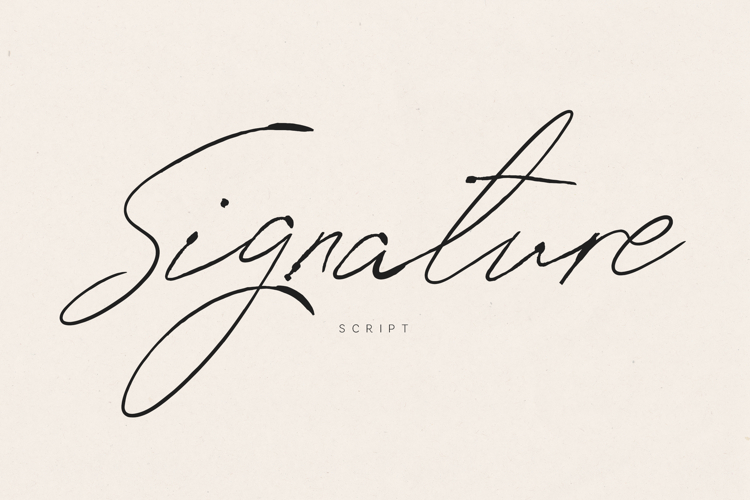
Signature Script Elegant Signature Handwritten
Signature is an elegant handwritten script font designed to capture the natural flow of real signature writing. With its smooth strokes, expressive curves, and authentic pen-style texture, it brings a sophisticated touch to any design.
Crafted to feel both refined and effortless, Signature blends modern calligraphy with a natural handwritten rhythm. It works beautifully across branding, logos, social media, and wedding design, adding a human and stylish feel to your work.
Whether you’re creating a luxury brand identity or a delicate invitation, Signature delivers character, movement, and elegance in every letter.
• Natural handwritten style
• Smooth connecting strokes
• Realistic signature feel